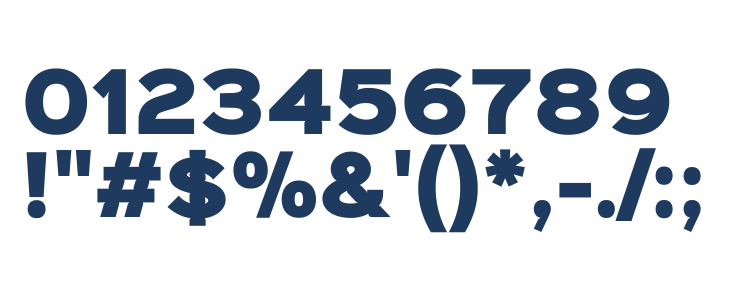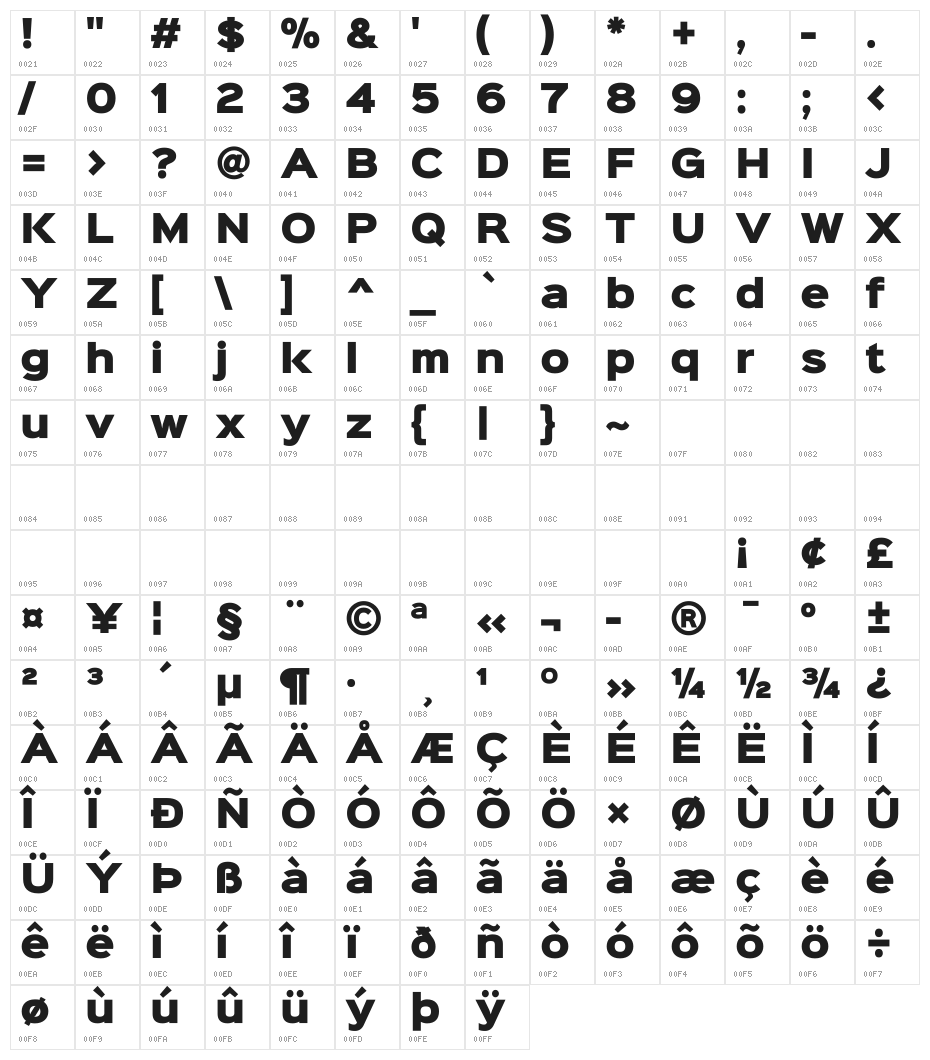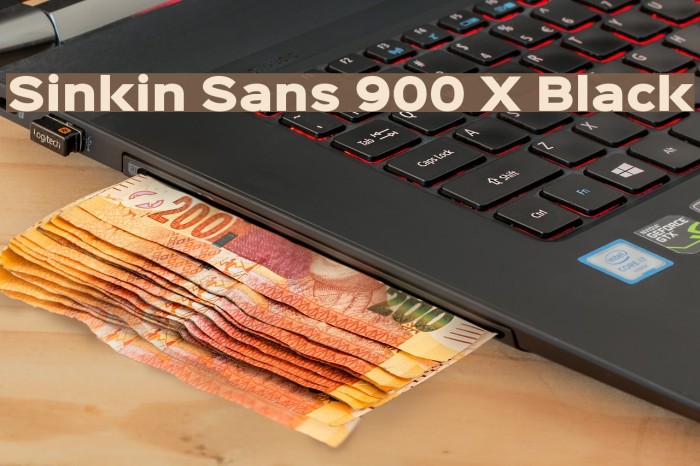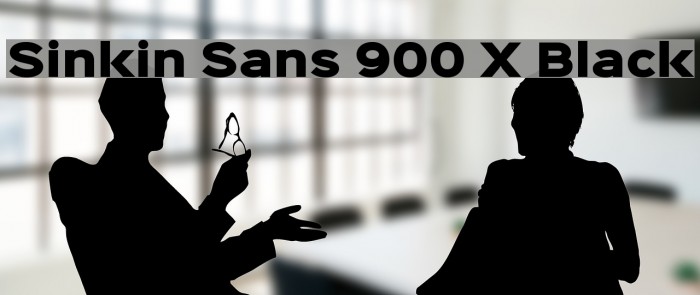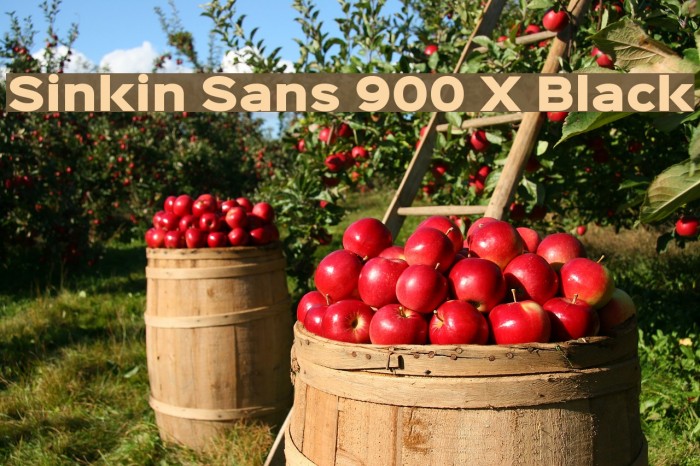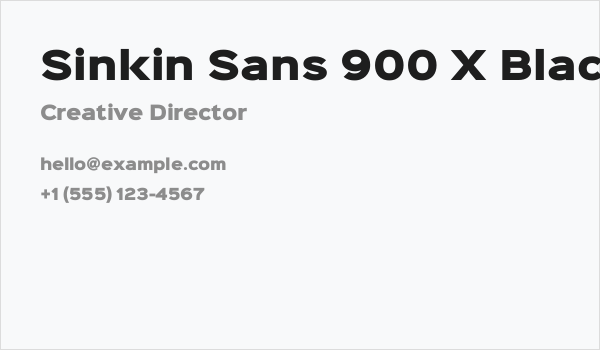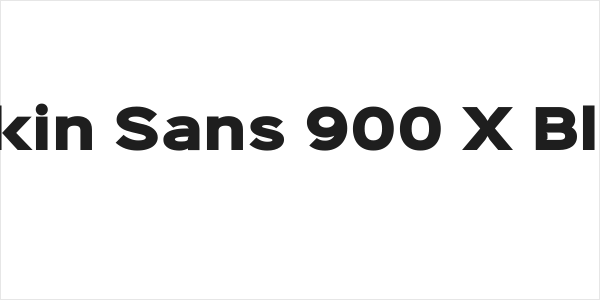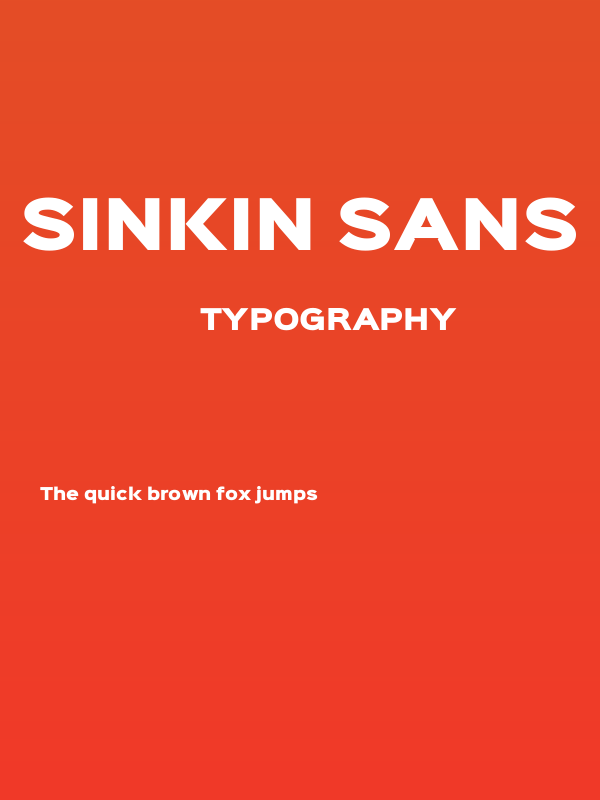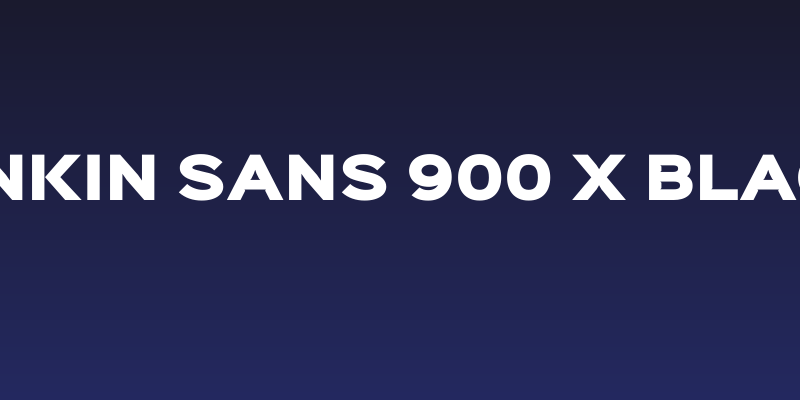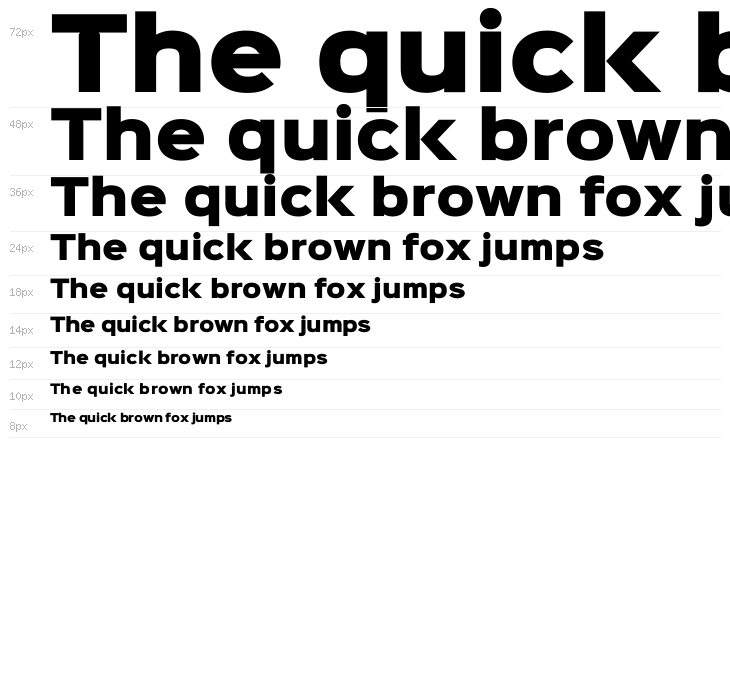
Sinkin Sans 900 X Black Font
Sinkin Sans 900 X Black Description
This font exhibits a bold and modern sans-serif style, characterized by its thick, uniform strokes and clean lines. The uppercase and lowercase letters maintain a consistent weight, providing a strong visual impact. The numerals are equally bold, ensuring readability and emphasis. Special characters are designed with the same robust structure, making them stand out clearly. The overall appearance is sleek and professional, suitable for various design applications that require a strong, contemporary look.
| Proposed Projects | Ideal for branding, headlines, posters, and digital media where a strong, impactful presence is desired. |